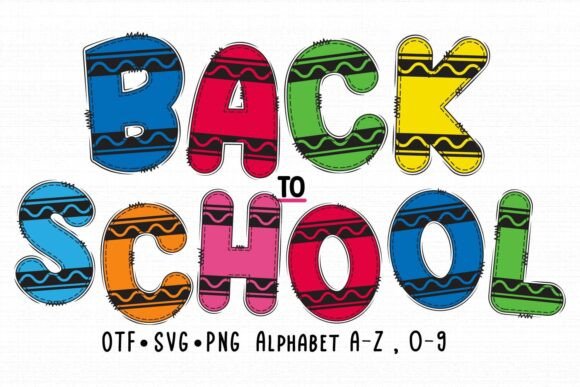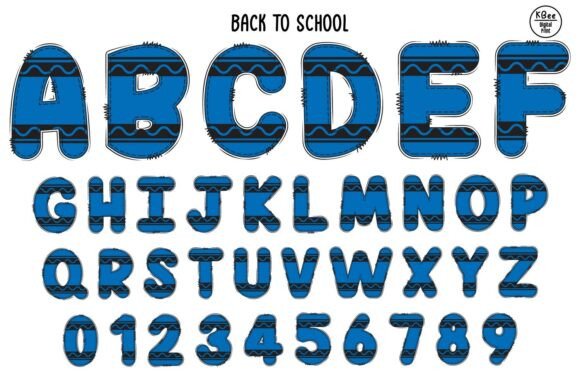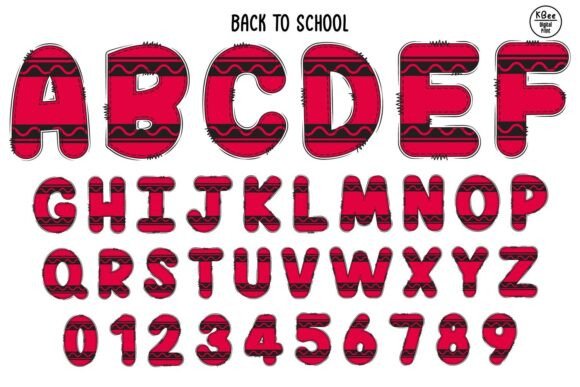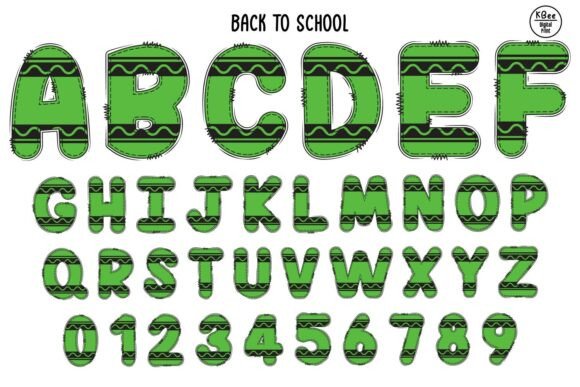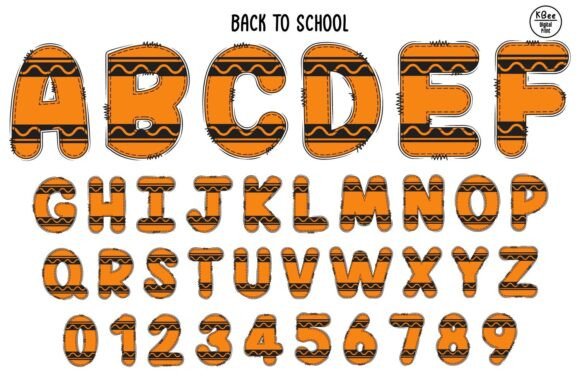
Back to School Font: A Fun and Creative Way to Welcome the New Academic Year
As the summer months come to an end, it’s time to get ready for the new academic year. For designers, crafters, and educators, this means creating engaging and visually appealing materials for students, teachers, and parents. One of the most important elements of any design project is the font used. That’s why we’re excited to introduce our Back to School Font, a hand-drawn doodle font that’s perfect for a wide range of projects, from greeting cards and invitations to educational posters and notebook covers.
What is the Back to School Font?
Hand-Drawn Doodle Letters and Alphabet Clip Art
One of the standout features of our Back to School Font is the hand-drawn doodle letters and alphabet clip art that come with it. These elements are perfect for adding a personal touch to your designs and can be used to create custom illustrations, borders, and other design elements. The alphabet clip art includes uppercase and lowercase letters, numbers, and punctuation marks, making it easy to create custom text and designs.
Cute Retro Cartoon School Supplies Pictures
To help you create even more engaging and visually appealing designs, we’re including a set of cute retro cartoon school supplies pictures with our Back to School Font. These illustrations include a range of school supplies, such as pencils, pens, books, and more, and can be used to add a fun and playful touch to your designs.
Using the Back to School Font in Your Design Projects
Our Back to School Font is incredibly versatile and can be used in a wide range of design projects, including:
- Greeting cards and invitations for the new academic year
- Scrapbooking and photo albums
- Websites and blogs
- Educational posters and charts
- Notebook cover designs
- Printing on kids’ shirts, team shirts, and mugs or bags
Tips and Tricks for Using the Back to School Font
To get the most out of our Back to School Font, here are a few tips and tricks to keep in mind:
- Experiment with different font sizes and colors to add visual interest to your designs
- Use the hand-drawn doodle letters and alphabet clip art to add a personal touch to your designs
- Combine the font with other design elements, such as illustrations and graphics, to create visually appealing designs
- Use the font to create custom text and designs for your projects